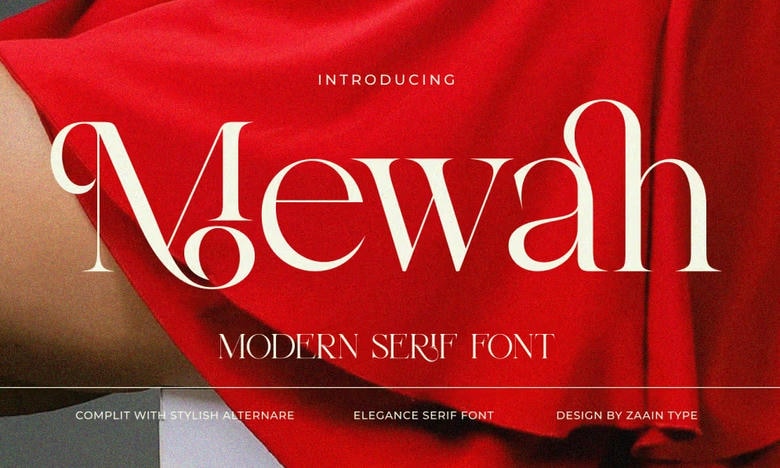
Mewah Font
Mewah is a serif font that brings elegance, luxury, and a classic feel to your designs. It features balanced proportions, smooth curves, and a strong contrast between thick and thin strokes.
Its elegant and versatile style works well for fashion branding, luxury logos, editorial layouts, beauty and cosmetics packaging, perfume labels, wedding invitations, magazine covers, and premium product designs.
Mewah Serif Font